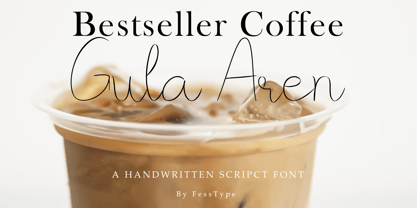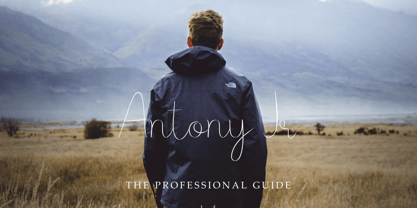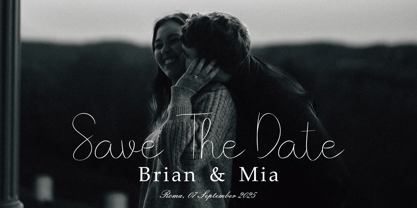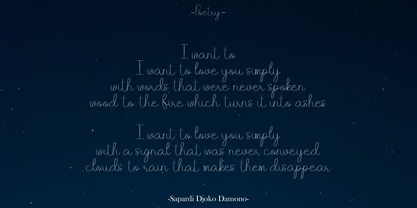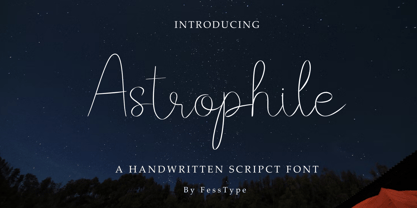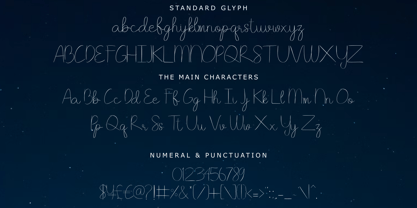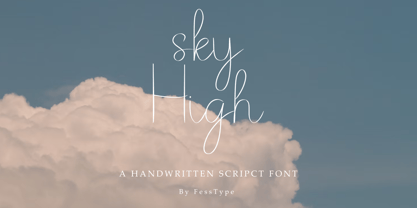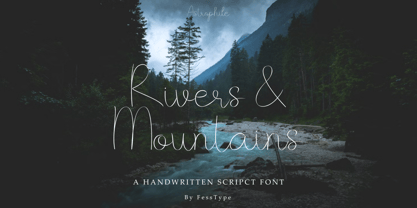
Astrophile
by FessType
The Astrophile Font Family was designed by Sofyan Nur Ngafiyat and published by FessType. Astrophile contains 1 styles. More about this family
Astrophile is a delicate handwritten script font designed by FessType. It features slim, flowing letterforms with gentle curves, creating an elegant and personal feel. Perfect for romantic, creative, and dreamy projects, it works beautifully for wedding invitations, inspirational quotes, branding, and celestial-themed designs.
Blending modern aesthetics with the natural charm of handwriting, this font adds warmth and visual grace to any design project.